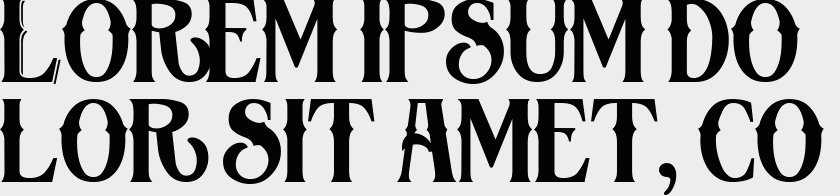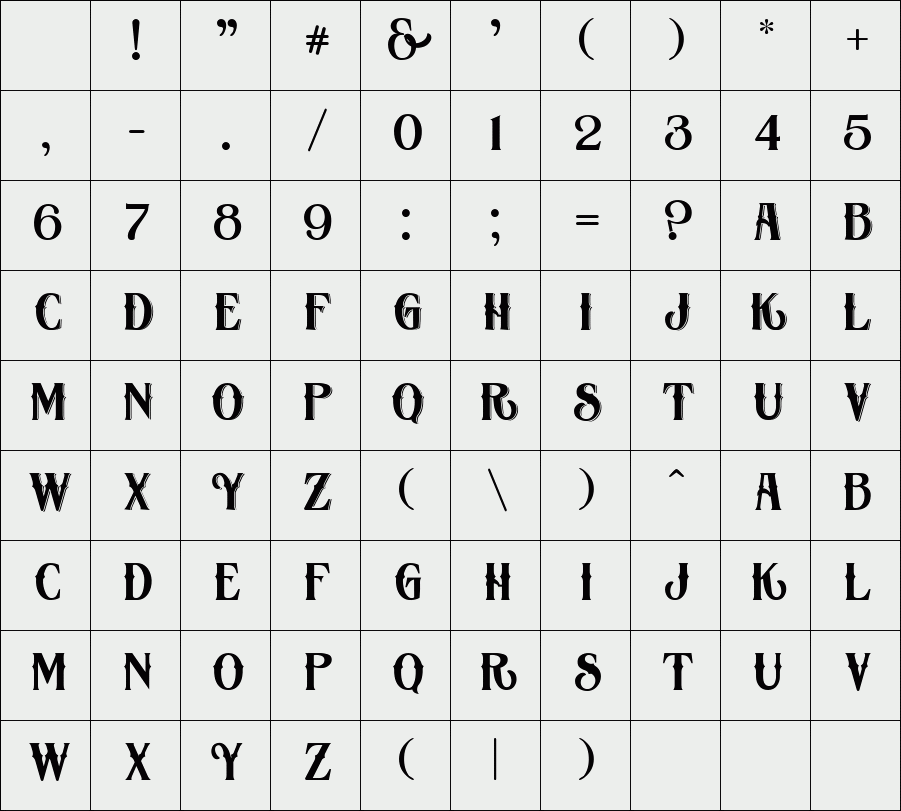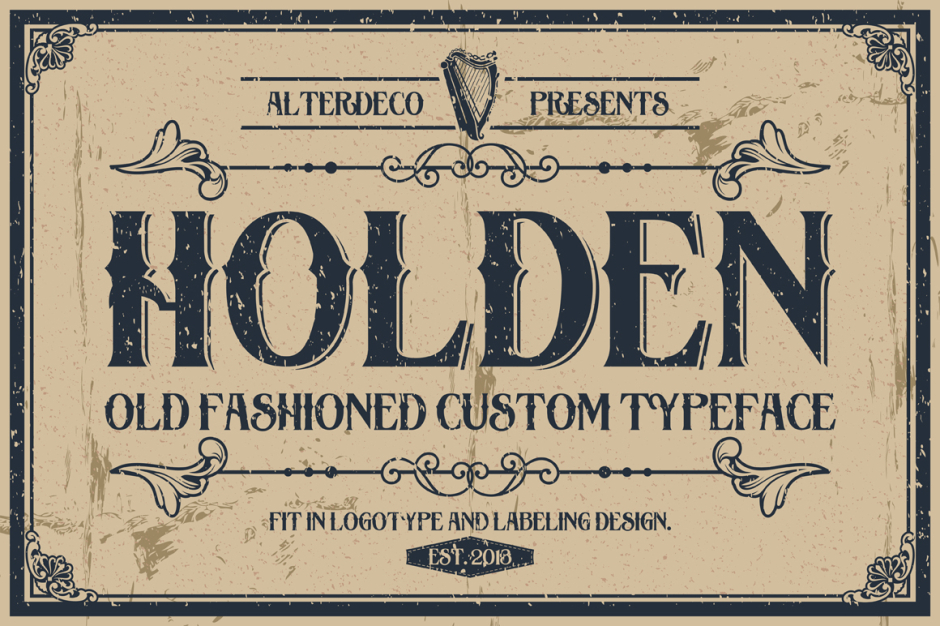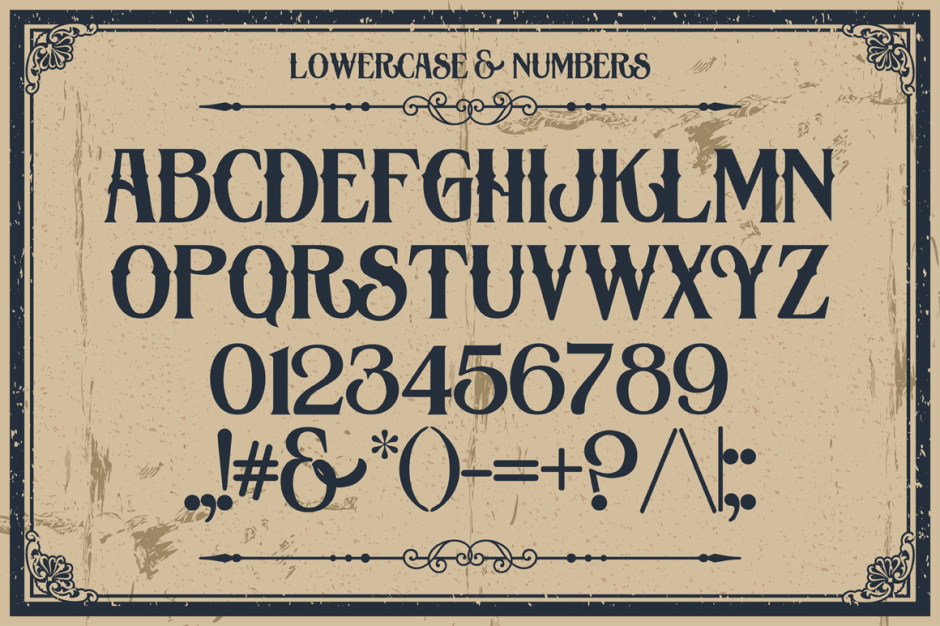
Holden typeface
Holden typeface is a vintage font, useful to create a vintage apparel design, logotype, and labeling. the uppercase is in shadowed style.